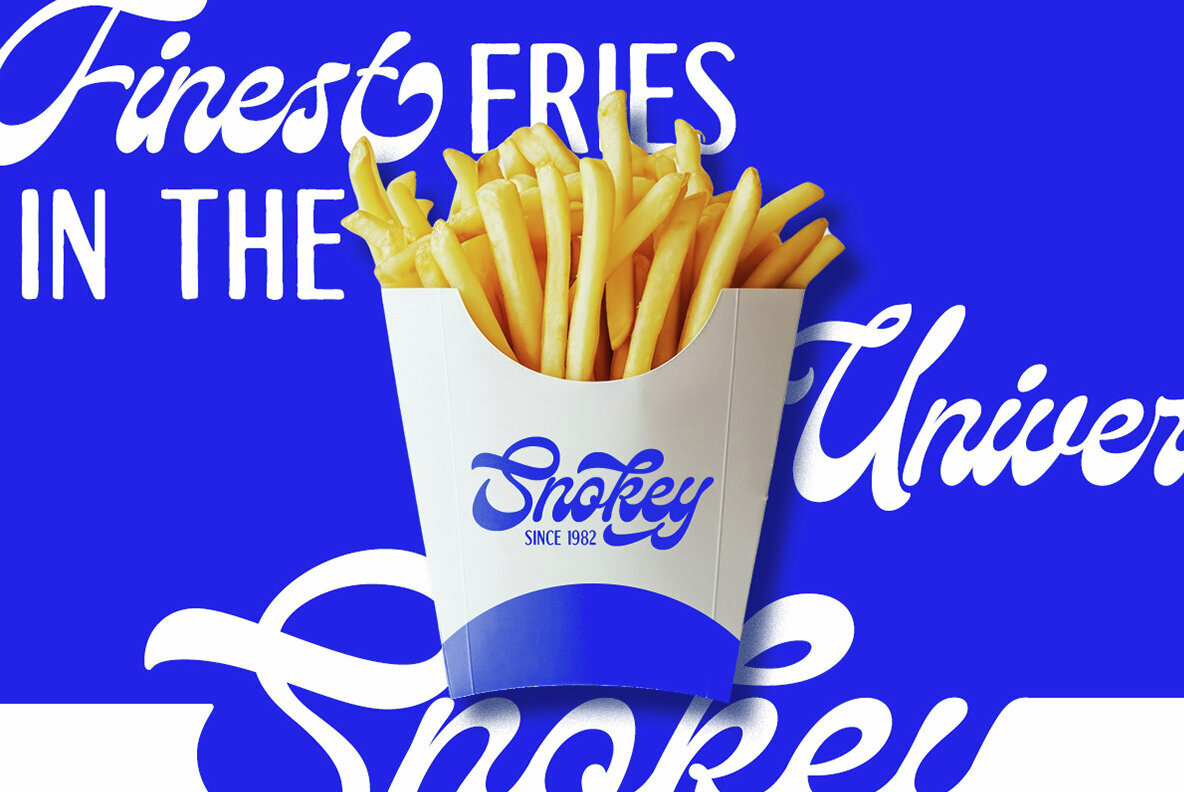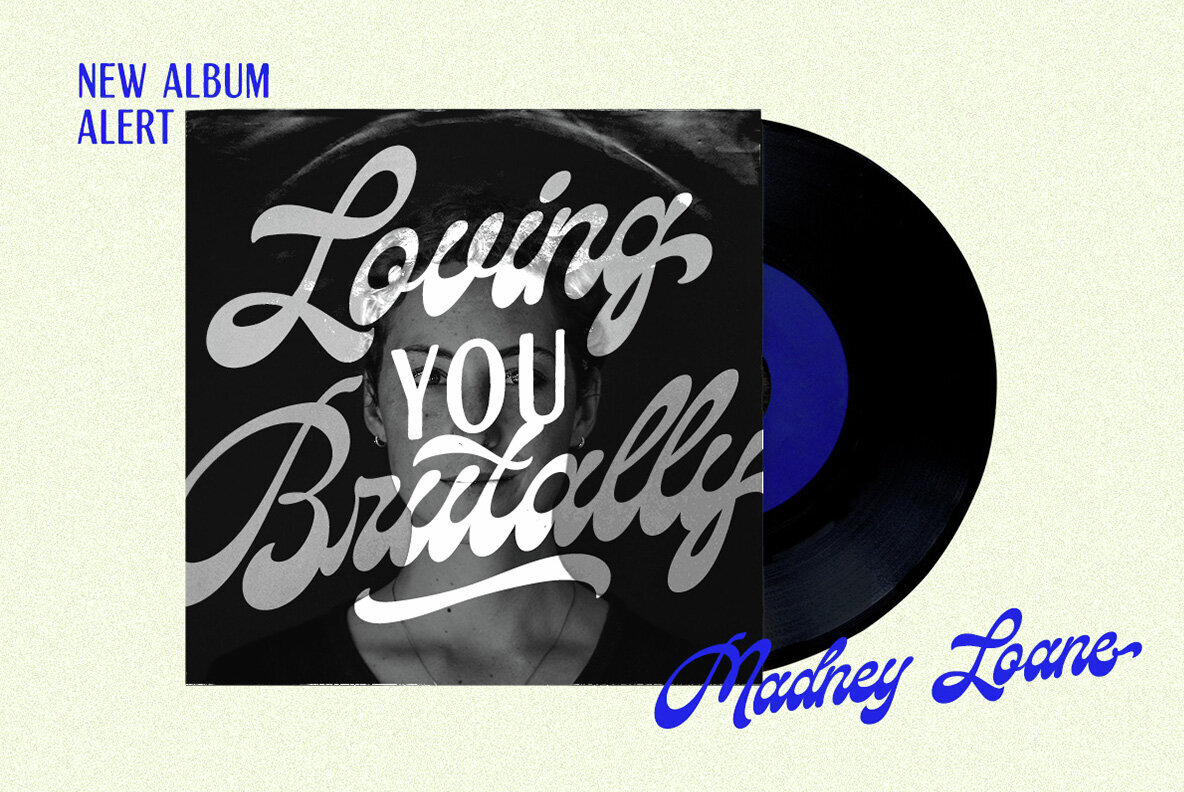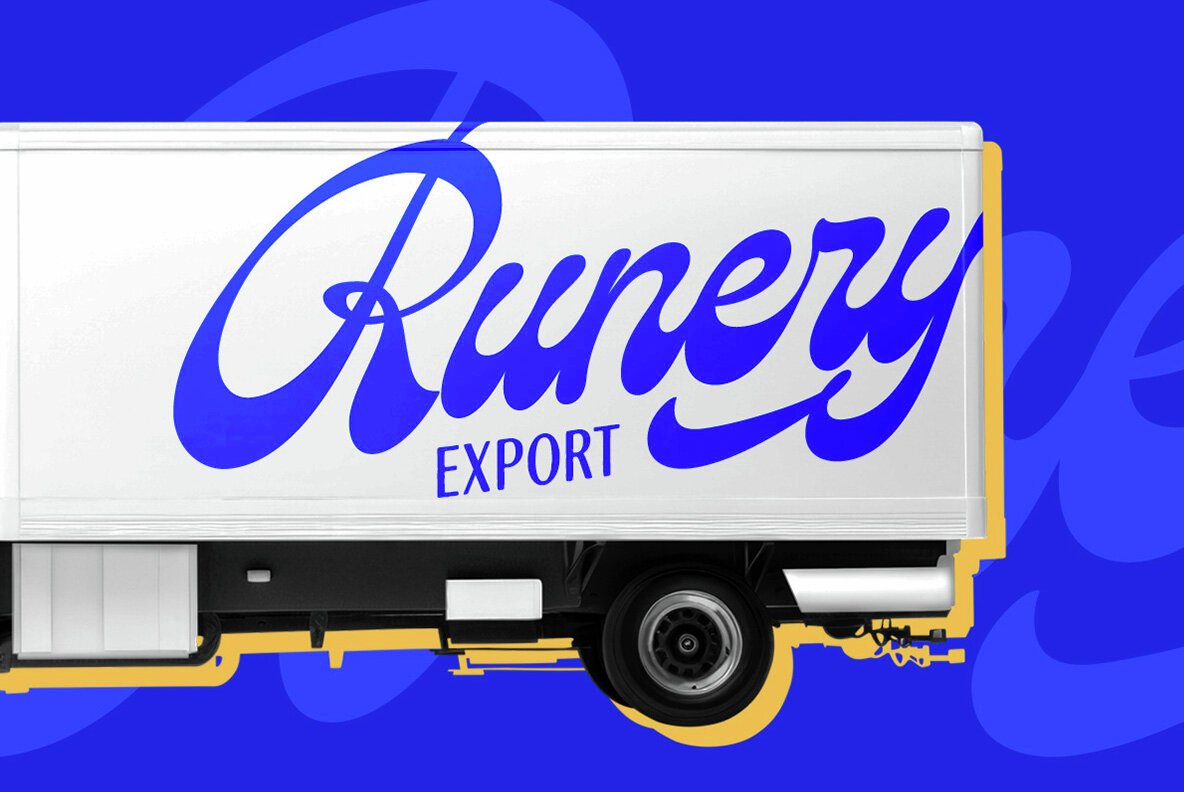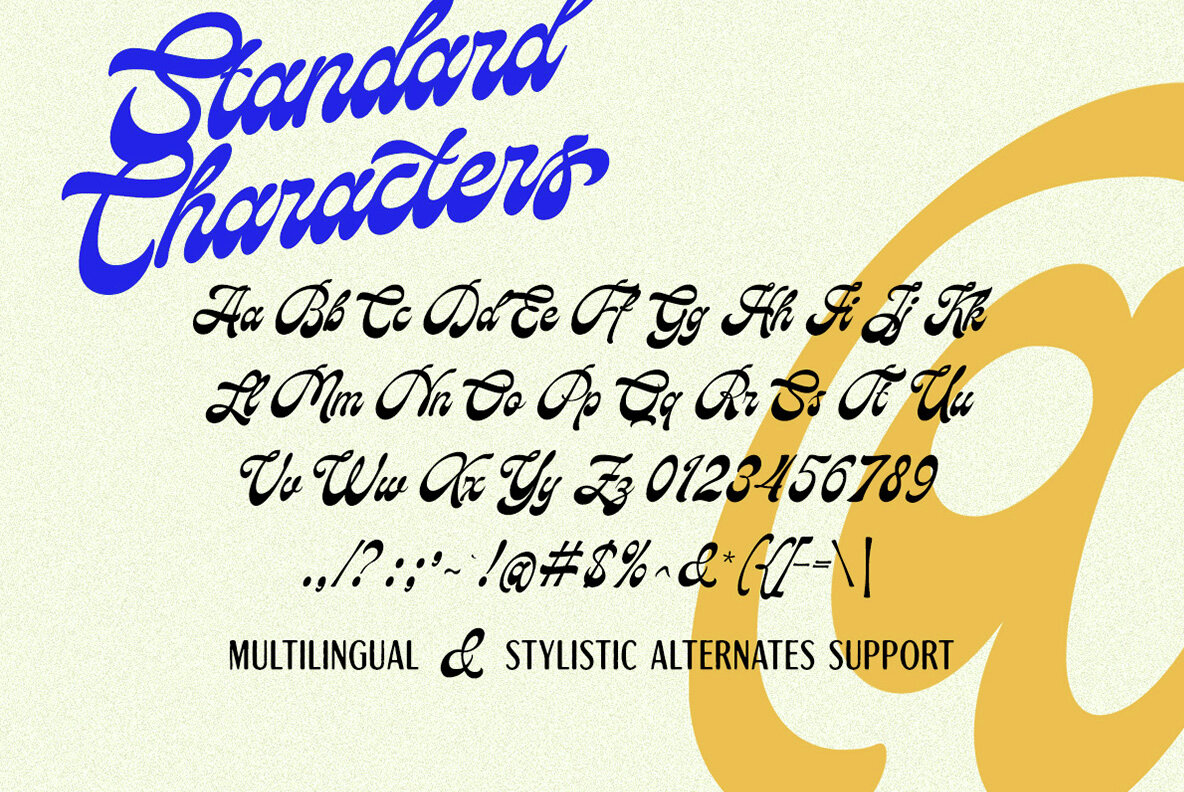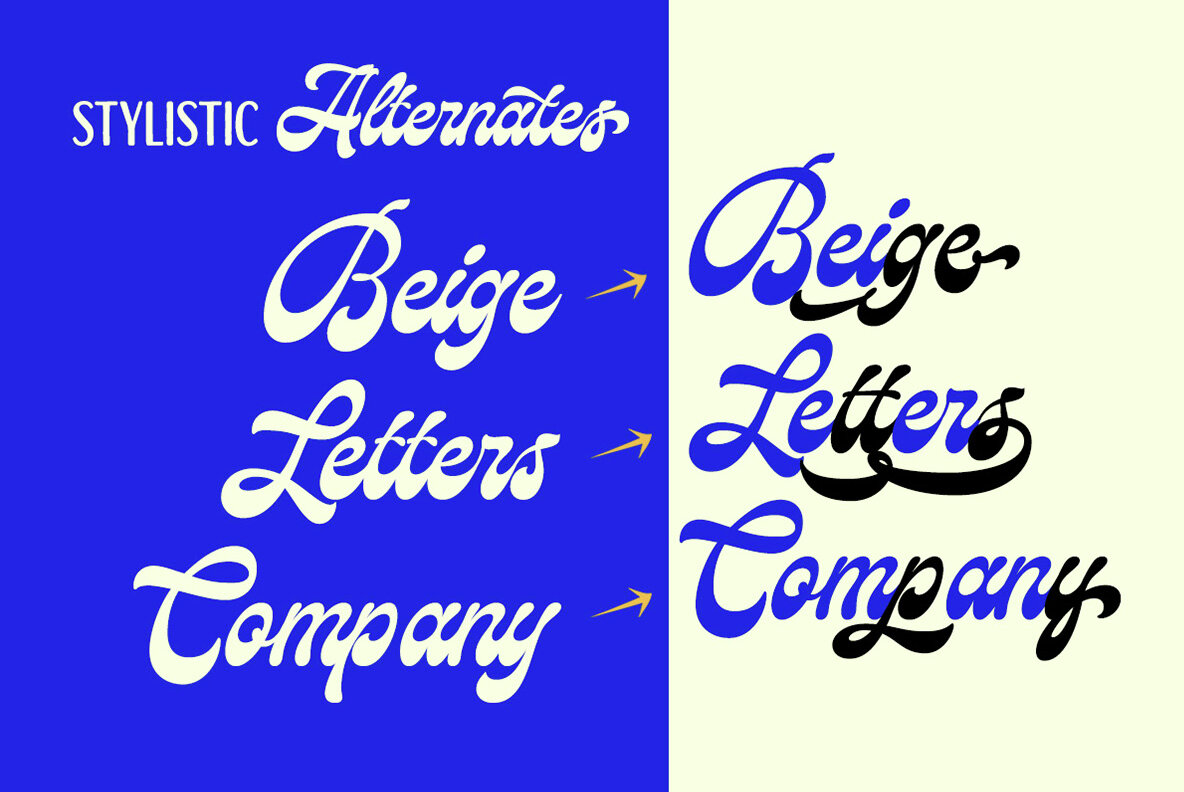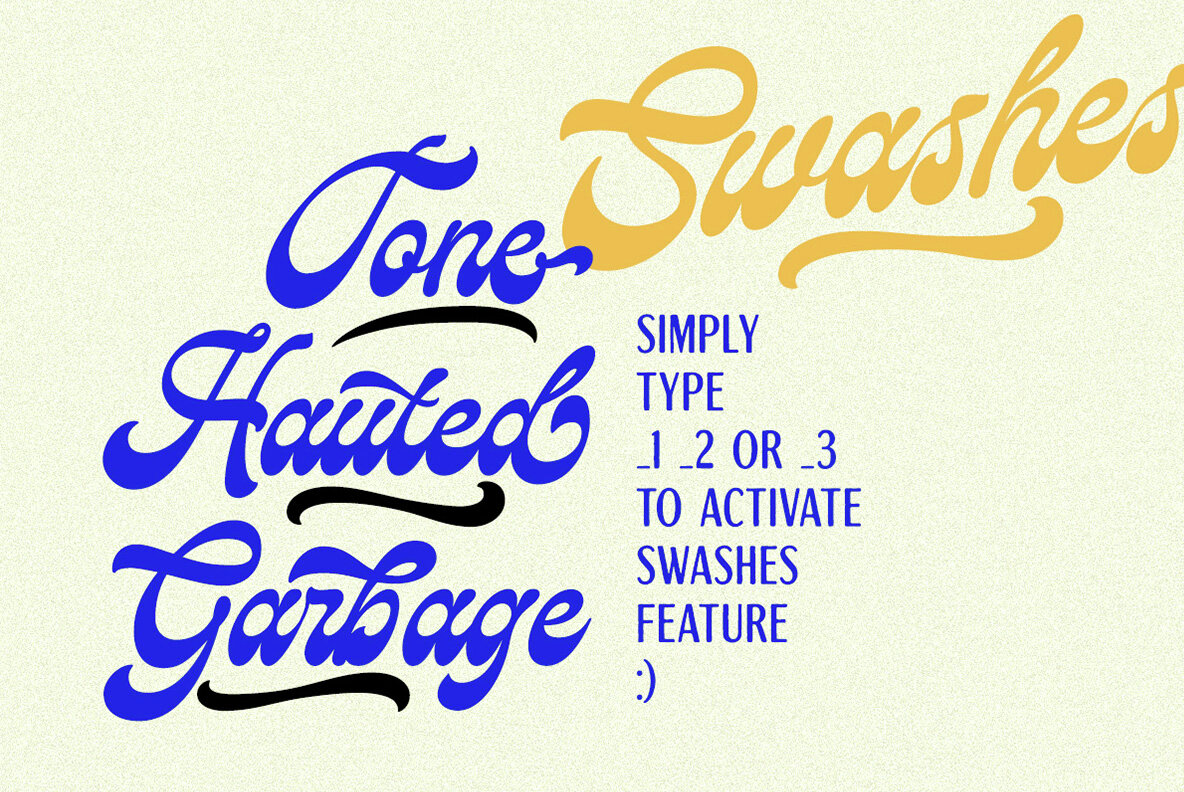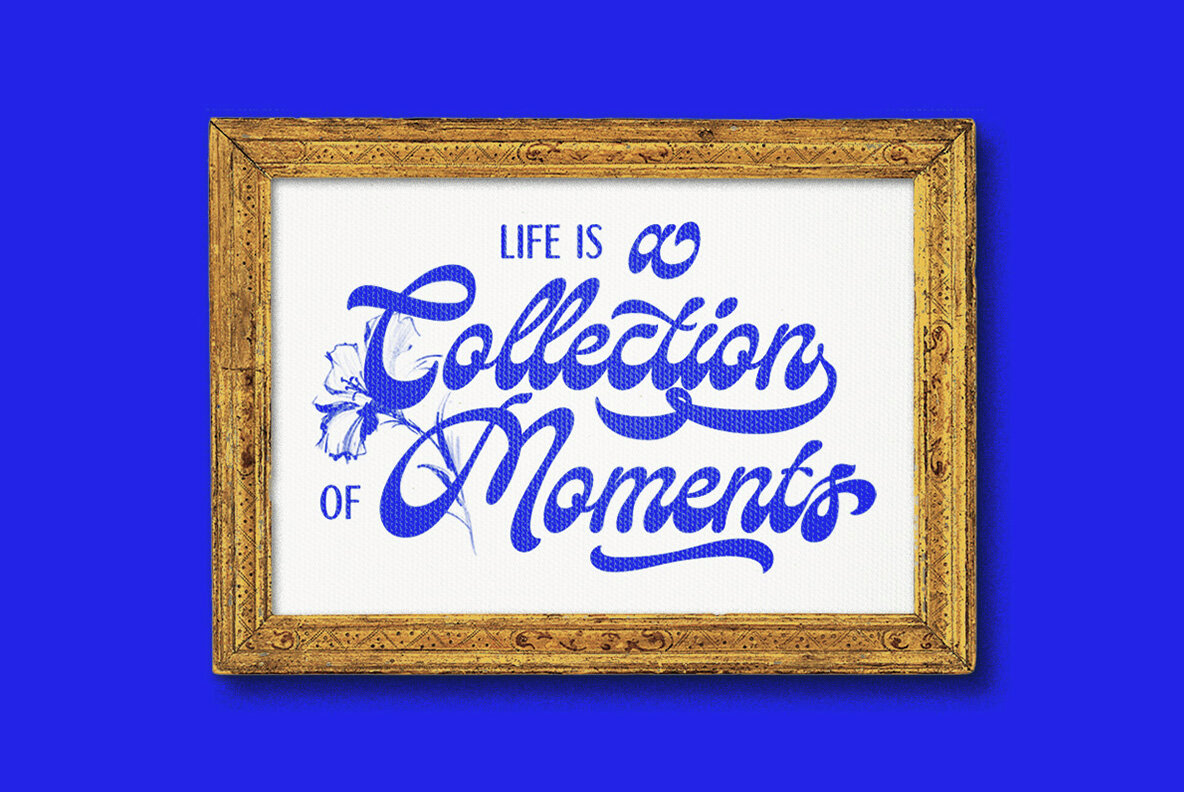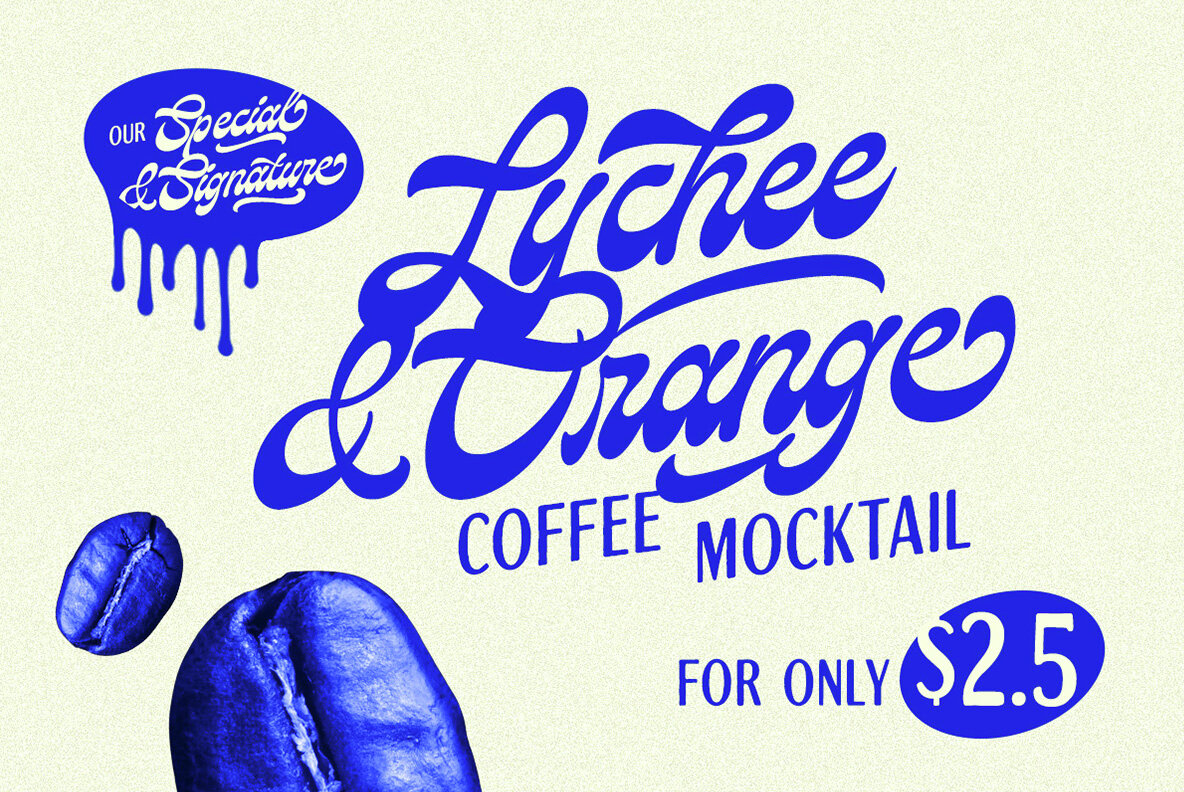
Relgone Font
Relgone is a distinctive retro script font designed to infuse style and character into your designs. Its elegant alternates allow you to customize and enhance your creative projects, making it an ideal choice for logos, invitations, labels, and various formal designs. Whether you're working on magazines, books, greeting cards, wedding stationery, packaging, fashion materials, or any advertising content, Relgone offers versatility and charm.
This font includes both uppercase and lowercase letters, numbers, punctuation, and a range of alternate characters. With multilingual support and PUA encoding, Relgone ensures ease of access to intricate glyph variations. For the best experience and to fully utilize its OpenType features, it is recommended to use design programs like Adobe applications or Corel Draw that support Glyphs panels.